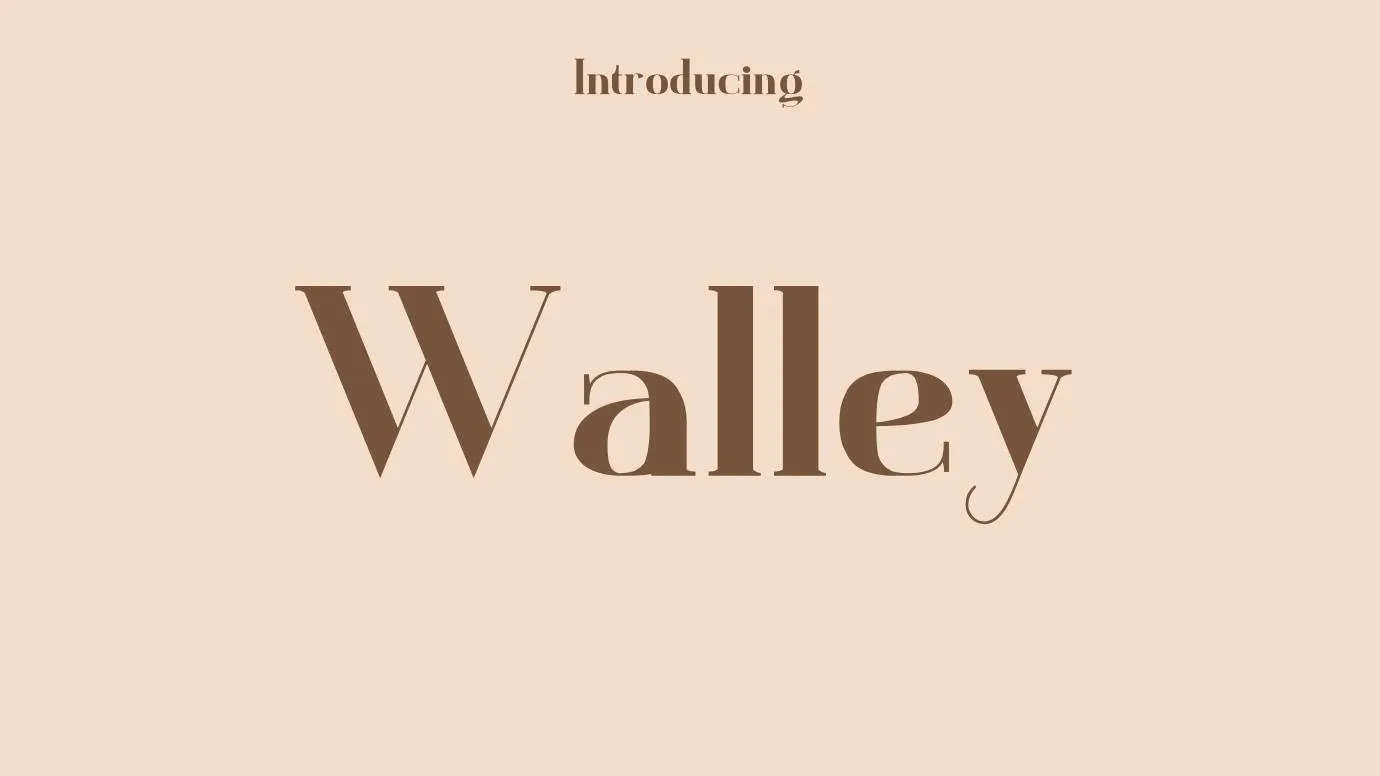
In this post, we will discuss Walley Font which is a unique serif look texture. This font family has thin and bold glyphs and a modern design. Its ligatures and stylistic alternates are obtainable for use in a bunch of design purposes. Display Studio which is a popular font studio is the manufacturer of this typography.
Due to its adorable look, this font has a wide range of uses in both OTF and TTF file structures. Its free text designing tool which is known by the name generator tool is freely obtainable for all designers. This eye-catching font has many similar fonts that are good for pairing with this typeface like elaris font. It is also great for use in various types of modern design purposes that we are going to discuss in the next section.
Additional Features of Walley Font
This stunning texture has a lot of additional and remarkable features, that make it impressive as compared to other typefaces. In its design pattern, the thin and bold glyphs of this texture make it very attractive and classic. Also, one more classic feature is that its bold and stylish glimpses are attainable in its free version and are usable for different designing purposes.
Walley Font
This gorgeous typography has a luxurious look with characters including numbers, uppercase letters, and a few classic and special characters. This staggering typeface has very helpful features that are attainable in its free version for our all audience. Containing three styles that are effective for a variety of designs.
Why the Walley Font is so Popular?
The popularity of the Walley typeface is increasing rapidly, and the reason behind this is its many advanced characteristics and adorable look. Especially the stylish styles of this font family make this typography impressive and worth using.
Over the last few years, a lot of designers pay their attention to this font family. If it is your desire to use a classic and astonishing texture for your designs, then I prefer this outstanding feature typeface to you for your designs projects, and functions.
Walley Font
Walley Font Family (Includes 03 Typeface)
• Walley Regular
• Walley Thin
• Walley Bold
Walley Font in Editorial Designs
By using the Walley typeface, you can create art designing, magazine designs, and appeal design purposes. This awesome font family is perfect for use in multiple logo designing, special signature designs, different tattoo designs, and letterhead design purposes. You can use it for making digital lettering and attractive logo design purposes.
This tremendous font family is obtainable for use in display card designs, product titling purposes, and advertisement design due to its luxurious look. You can use this typography for making attractive posters, wall murals designs, and so on. Also, for creating animated books design and ebook covers, this typography is the best choice.
You can easily utilize this amazing font for creating a pairing with the yessica font that comes in the sans serif family. For adorable text designs on greeting cards, gift cards, and other related cards, You would have to use this font family. This font family is good for use in high-level serif designs and paragraph design purposes.
What is the type of Walley Font?
This amazing font is mainly categorized as a serif font and it was established by Display Studio which is a famous studio for the creation of fonts.
Is there any similar font to Walley Font?
Yes, a huge number of fonts are similar to this typography but if you want to get most alternatives then pick voire font which is a serif look typeface.